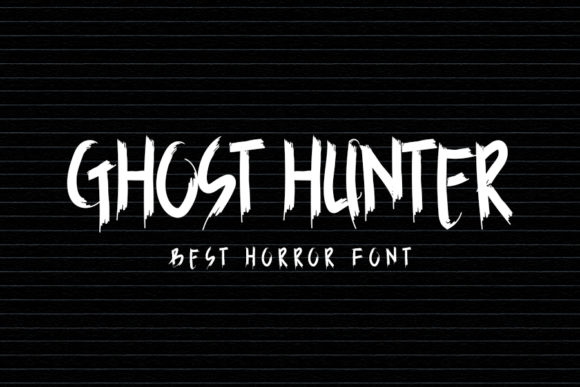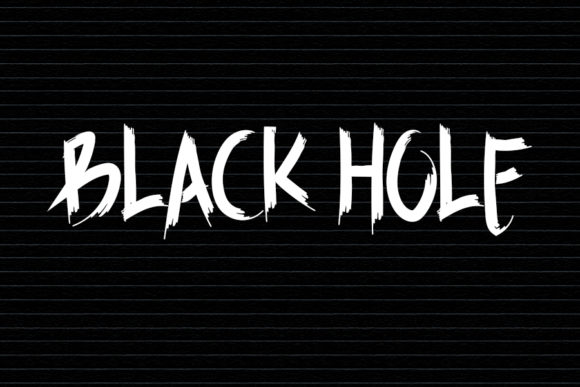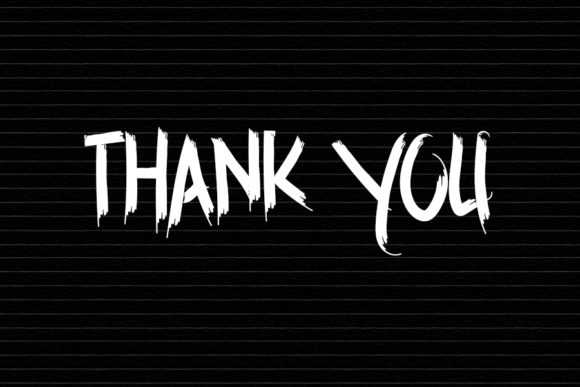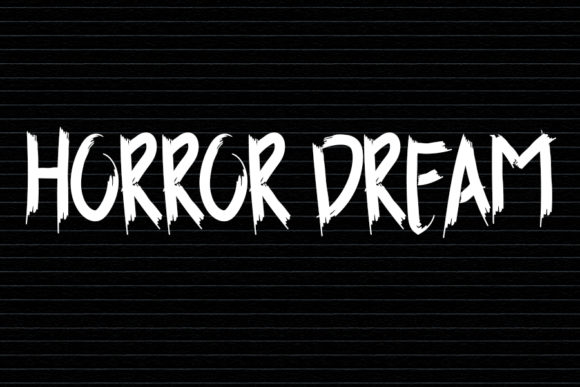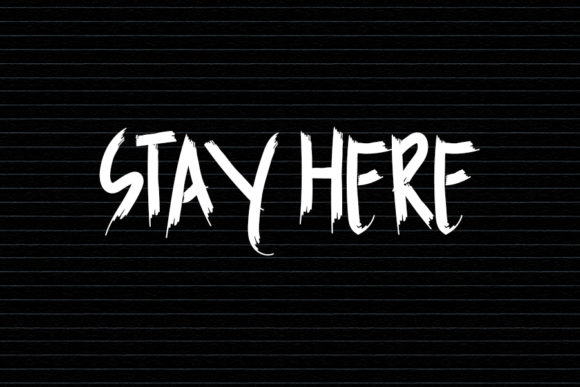
Ghost Hunter Font
About Ghost Hunter Font
Ghost Hunter sounds like a delightful and versatile handwritten font that combines cuteness and a friendly feel. With its casual and playful style, Ghost Hunter can add a touch of charm to a wide range of design projects. Here are some exciting ways to use Ghost Hunter and make your creative ideas come alive:
1. Social Media Graphics: Create eye-catching and engaging social media posts and graphics with Ghost Hunter’s cute and friendly handwriting.
2. DIY Projects: Incorporate Ghost Hunter in DIY projects, such as handmade cards, gift tags, and crafty home decor, to add a personalized touch.
3. Quotes and Typography Art: Design beautiful quote graphics and typography art using Ghost Hunter’s playful and artistic style.
4. Blog Headings: Use Ghost Hunter for blog post headings and titles to make your blog design more appealing and inviting.
5. Kids’ Book Illustrations: Create fun and whimsical kids’ book illustrations with Ghost Hunter’s adorable handwritten letters.
6. Party Invitations: Design adorable party invitations for birthdays, baby showers, and other celebrations using Ghost Hunter’s friendly font.
7. Stickers and Labels: Use Ghost Hunter to design cute and expressive stickers and labels for various products and packaging.
8. Personal Branding: Incorporate Ghost Hunter in personal branding materials, such as business cards and email signatures, to showcase your creative side.
9. Children’s Educational Material: Create educational materials for children, such as flashcards and worksheets, with Ghost Hunter’s approachable handwriting.
10. Handwritten Notes: Add a heartfelt touch to handwritten notes and letters by using Ghost Hunter’s friendly and warm script.
11. Food Menus: Use Ghost Hunter in restaurant menus and food truck signage to create a welcoming and approachable atmosphere.
12. T-Shirt Designs: Design fun and quirky t-shirts with Ghost Hunter’s playful and expressive font.
13. Animated Text: Use Ghost Hunter in animated text and graphics for videos and motion graphics to add a touch of personality.
14. Nursery Decor: Create adorable nursery decor, such as wall art and name plaques, using Ghost Hunter’s cute handwriting.
15. Social Media Highlights: Design attractive covers for Instagram story highlights using Ghost Hunter’s charming font.
16. Scrapbooking: Use Ghost Hunter in scrapbooking projects to document special memories in a fun and whimsical way.
17. Invitations for Playdates: Design cute playdate invitations for kids using Ghost Hunter’s friendly and inviting style.
18. E-Cards: Create animated e-cards and digital greeting cards with Ghost Hunter’s playful and artistic handwriting.
19. Handmade Product Tags: Add a personal touch to handmade products with custom product tags featuring Ghost Hunter’s cute font.
20. Kids’ Educational Apps: Use Ghost Hunter in kids’ educational apps and games to make learning fun and engaging.
In conclusion, Ghost Hunter’s cute and casual handwritten style offers a wide range of creative possibilities for various design projects. Embrace its friendly and approachable feel to add a touch of charm to your creations. Whether it’s for social media, DIY projects, or personal branding, Ghost Hunter’s adorable and artistic handwriting will turn any creative idea into a true piece of art!